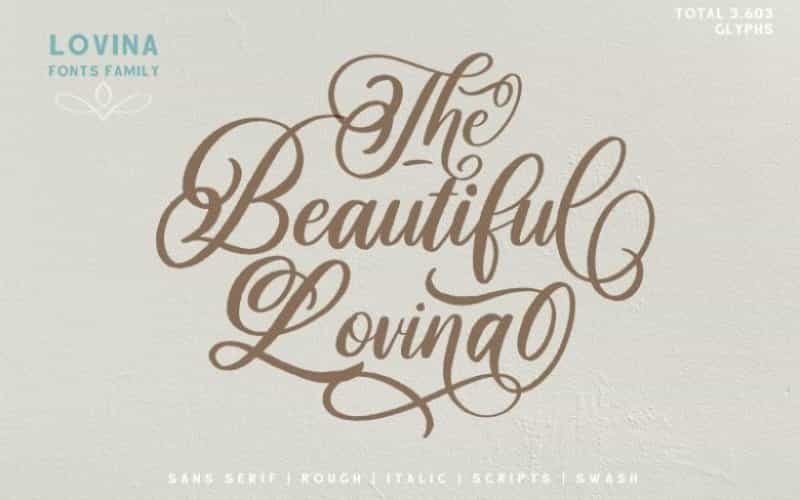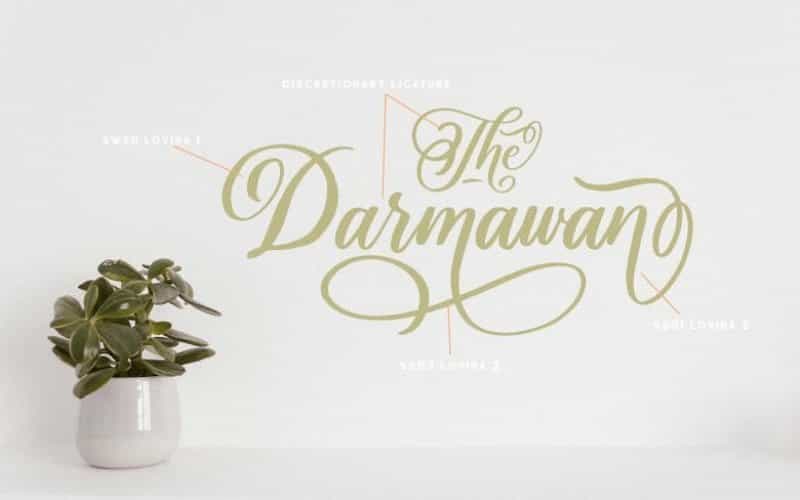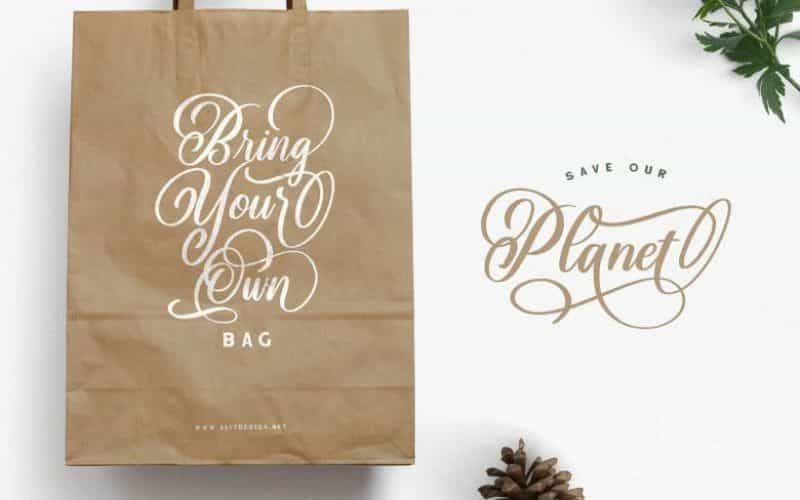
Lovina Font Family is our first Font in 2019, it has a handwritten script style with a touch of natural rough from the shape of the brush. For Scripts, Lovina fonts have 2 choices namely “Lovina Regular” and “Lovina 2 Regular” in this font script there are many alternative choices of characters from Swash Lowercase, SS01 to SS06.